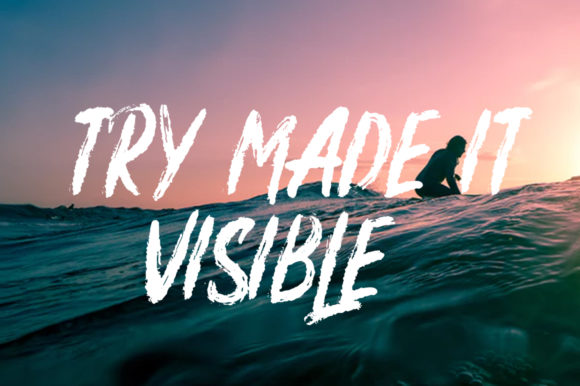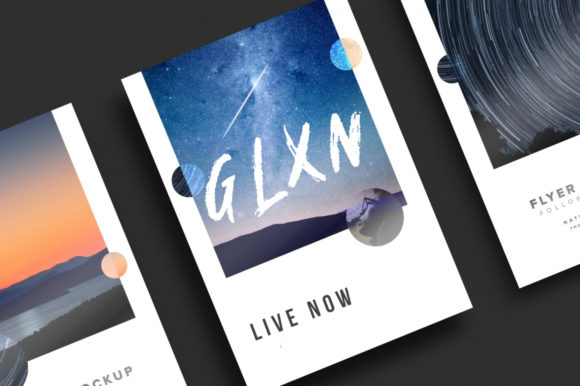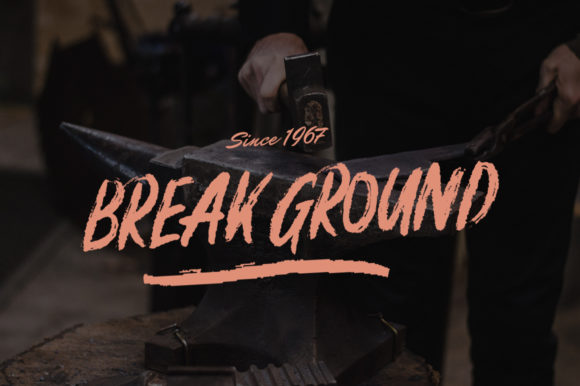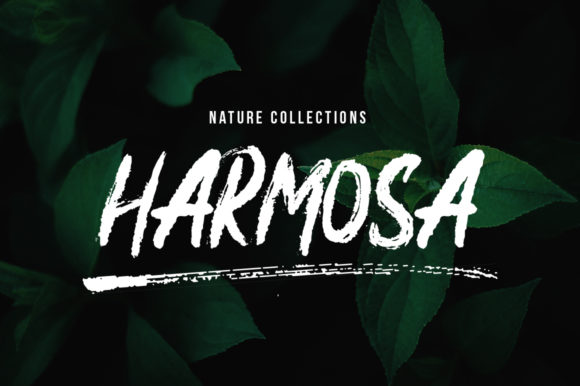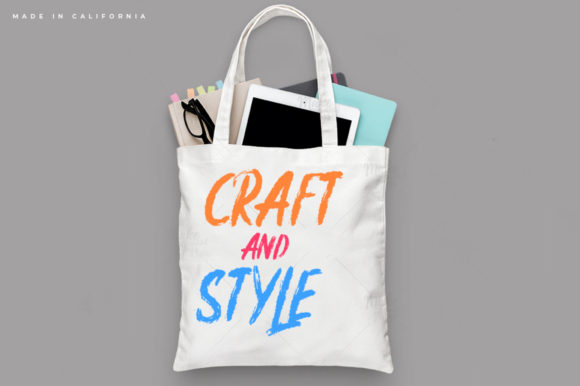
Introduction to Brushfix Font
Have you ever found yourself staring at a blank page, desperate for that perfect font to bring your creative project to life? For designers, this moment is all too familiar. It’s the moment when inspiration strikes, and the possibilities seem endless. But what happens when that perfect font eludes you? This is where the Brushfix Font comes in – a high-quality, free download that’s about to revolutionize your design process.
With its striking look and smooth flow, the Brushfix Font is the ultimate design resource for any creative project. Whether you’re crafting logos, printed quotes, or product packaging, this versatile font is sure to make a statement. And with its transparent background, the Brushfix Font is the perfect addition to any design – no matter how complex or simple.
As a valuable asset for designers, the Brushfix Font offers endless possibilities for creative expression. Its clear style and rough brush texture make it perfect for headers, letterheads, posters, apparel designs, labels, and so much more. So why settle for an ordinary font when you can unleash your creativity with the Brushfix Font?
Key Features of Brushfix Font
- Includes 6 font styles with a transparent background for versatile usage
- Unique brush-style design with a hand-drawn feel, perfect for adding a personal touch to designs
Honest Review: Brushfix Font
I recently stumbled upon the Brushfix Font while searching for free design resources to elevate my creative project. Initially, I was drawn to its unique, hand-drawn style, which I thought would add a personal touch to my design.
Here are some aspects that work well for me: ✨ The Brushfix Font comes in a high-quality TTF format, making it easy to install and use in various design applications. I also appreciate the transparent background, which allows for seamless layering and compositing. The font’s subtle texture adds a nice visual interest to my designs.
- ✨ Versatile and suitable for various creative projects, including branding, advertising, and editorial content
However, I do have some limitations to note: ⚠️ The Brushfix Font is not ideal for small-scale text, as the strokes can become too thick and overpowering. Additionally, some characters may require manual adjustments to maintain consistency.
Overall, I’m impressed with the Brushfix Font’s unique style and versatility. It’s a valuable addition to my design resource collection, and I look forward to experimenting with it in future projects.
Tips for Getting the Most Out of Brushfix Font
Use the Brushfix Font to add a personal touch to your designs. Experiment with different font sizes, colors, and combinations to create unique and eye-catching graphics. The font’s high-quality design makes it perfect for both personal and professional projects.
The Brushfix Font is ideal for a variety of creative projects, including:
- Poster design
- Brand identity
- Wedding invitations
Is the Brushfix Font available in multiple styles and weights?
Yes, the Brushfix Font is available in various styles and weights, offering a range of creative possibilities for your design project. From light to bold, and with different font styles, you can choose the perfect version to match your design’s tone and aesthetic. You can download each style and weight separately or as part of a comprehensive font package.